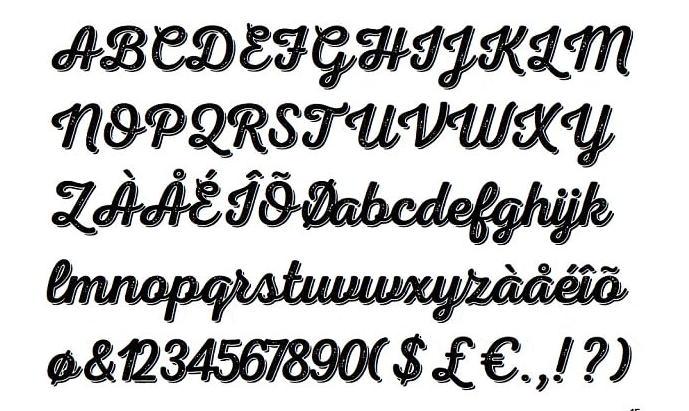
LA Dodgers Font- Introduction
The font of the LA Dodgers is an ideal example of how typography in sports goes beyond design, and it is a story of passion, loyalty, and a feeling of tradition. It is the official typeface of the Los Angeles Dodgers and, consequently, a classic typeface that has grown to be a legendary member of the team as an insignia, not as a logo but a life line to the history of baseball. The font of the LA Dodgers is not just the font to various generations of people, it is a symbol, which unites, a feeling of pride, and breathing spirit of the game.
Features- LA Dodgers Font
The LA Dodgers font, widely believed to be inspired by a typeface called Ballpark Script, is a script-style font with distinctive characteristics. Let’s break down its features:
- Flowing Script Style
The font is a flowing script, exuding elegance and sophistication. Its connected letters create a sense of movement, making it visually dynamic. - Thick and Thin Strokes
The contrast between thick and thin strokes adds depth and refinement, making it stand out in print and digital formats. - Retro Aesthetic
Having origins in mid-20th-century design the style creates nostalgia and keeps permanent relevance. - Versatility
Although closely associated with the Dodgers brand, the font is versatile enough to be used in various creative contexts, such as event branding, apparel design, and social media graphics. - Legibility
Despite its ornate design, the font is highly legible, ensuring the text remains clear and impactful, even from a distance.
Alternatives- LA Dodgers Font
The legendary logo of Los Angeles Dodgers is surrounded by a specially designed font that is easily recognizable – and completely original. The team-made typeface, called Dodger Blue, was designed to be used by the team and the vintage style of this typeface has become the part of the Dodger visual image. Although it is not in the public circulation, its iconic position is inspiring both fans and designers. The LA Dodgers font is iconic; however, there are a number of available ones that also share a similar spirit. Here are some options for designers looking for comparable typefaces:
While the official “Dodger Blue” font remains exclusive, we’ve got the next best thing! For all you fans working on personal projects, meet “Catchland” – a fantastic, free-to-download font that captures the spirit of the Dodgers’ logo.
Perfect for crafting fan posters, digital masterpieces, or any other creative endeavour, “Catchland” is a terrific alternative to scoring a home run with your audience!
The iconic interlocking LA logo boasts a custom font design that’s unmistakably nostalgic. If you want to capture that retro charm, look no further than the “College” font from the Old School category. Its striking similarities to the LA logo make it ideal for projects that crave a vintage LA vibe.
Applications- LA Dodgers Font
The LA Dodgers font has transcended its original purpose, finding a place in various creative projects. Here are some applications:
- Sports Branding
Naturally, the font is a cornerstone of sports branding. From merchandise to promotional materials, its unmistakable design captures the essence of team spirit.
- Event Invitations
Want to do an event about baseball? Invitations, banners, and decorations can be made with the help of the Dodgers font that will give them an authentic touch. Its beautiful writing produces a high-end sporty appeal.
- Custom Merchandise
The Dodgers font is frequently used to make custom T-shirts, hats and posters by designers. It is tied to the team, which guarantees an emotional bond to the fans, and these items are very desirable.
- Social Media Graphics
The bold and dynamic style of the font makes it popular with social media campaigns. It attracts attention and can be used to express excitement whether through announcements during a game-day or in interacting with fans.
- Typography Art
Typography-based art frequently uses the font. Due to its organic forms and vintage aesthetic, it becomes one of the most popular options among designers who design posters, digital art, or wall paintings.
How to Use the LA Dodgers Font in Your Projects
Using the LA Dodgers font for your designs will boost your creations when you design for sports fans or aim for an old-style appearance. Here are a few tips:
- Pair It Wisely
Combine the Dodgers font with clean, sans-serif typefaces to balance its ornate style. This ensures clarity and prevents the design from feeling overcrowded. - Experiment with Colors
While the traditional Dodgers blue and white are iconic, don’t hesitate to explore other colour combinations to suit your project’s theme. - Maintain Consistency
If you’re using the font for branding, ensure the style is consistent across all elements, from logos to marketing materials. - Add Texture
The LA Dodgers typeface belongs to a level beyond design, as it represents both baseball tradition and cultural legacy. The typeface represents the popular baseball team and traditional typography artistry through its enduring script design.